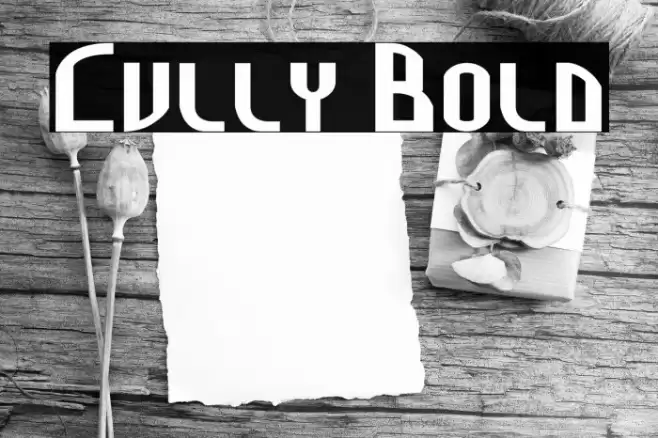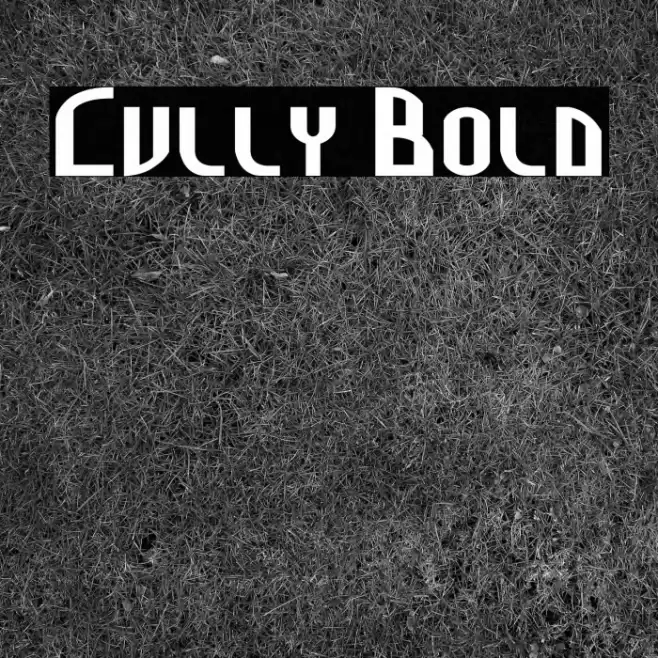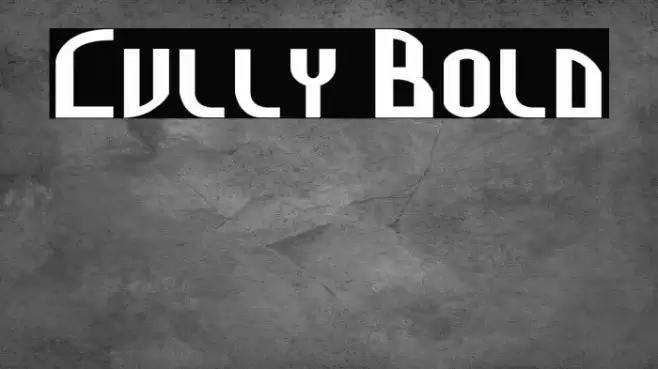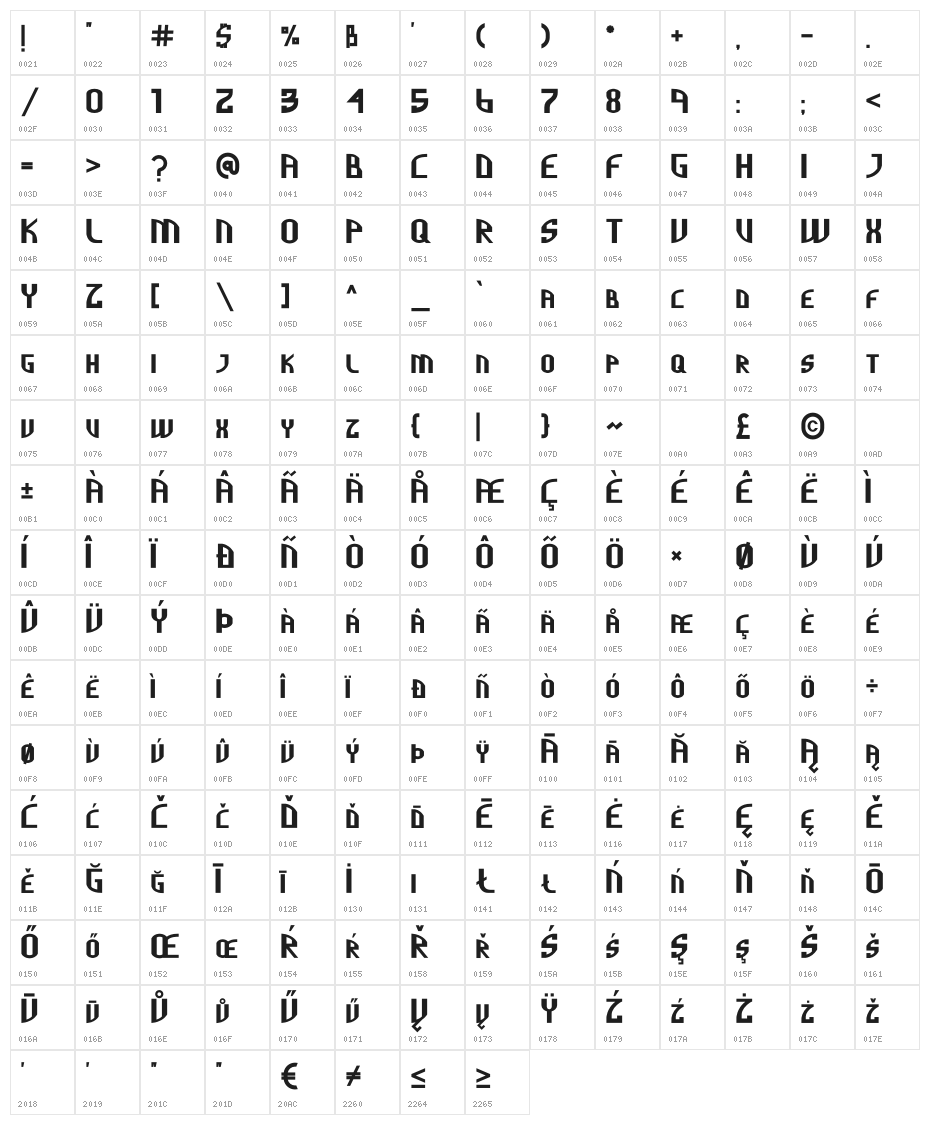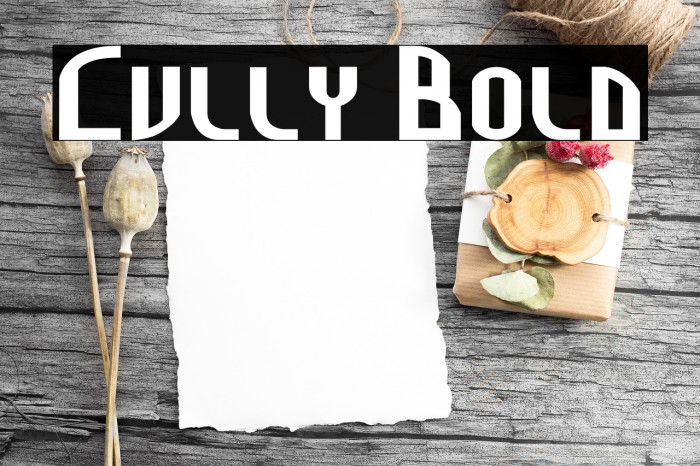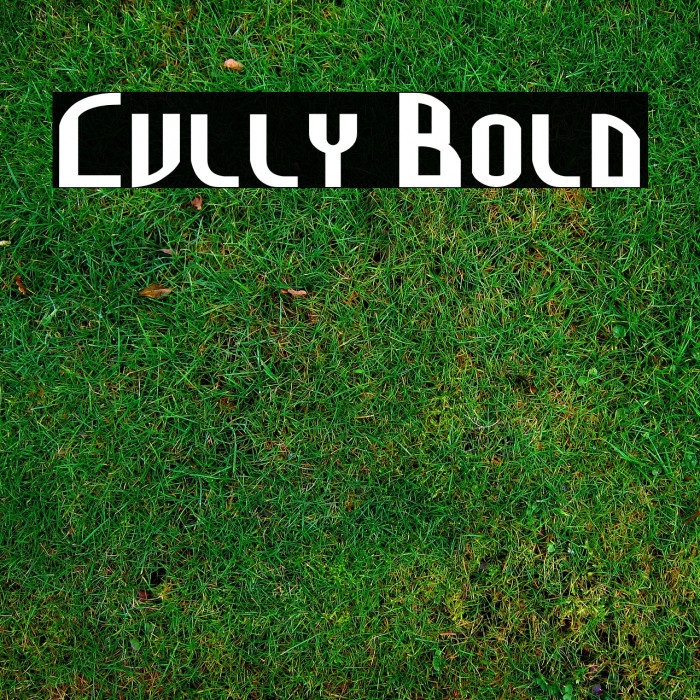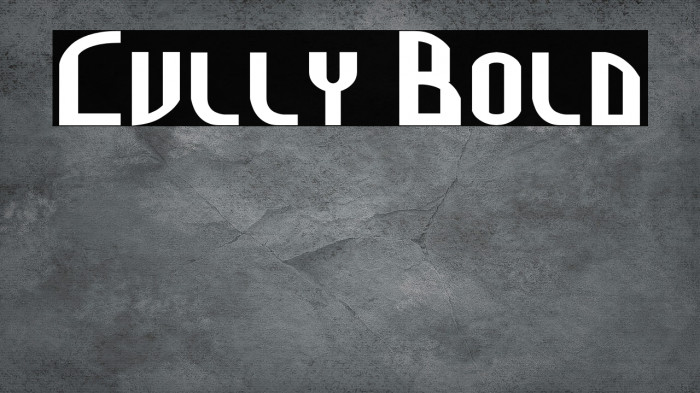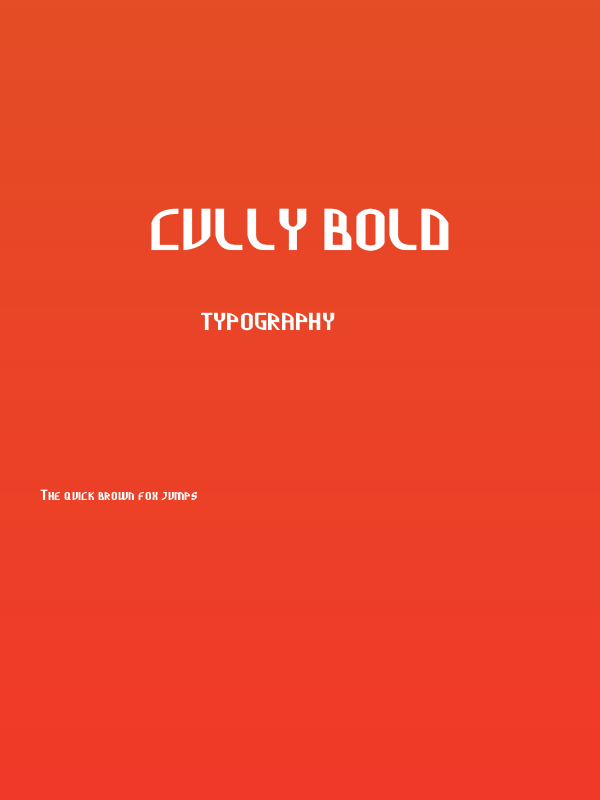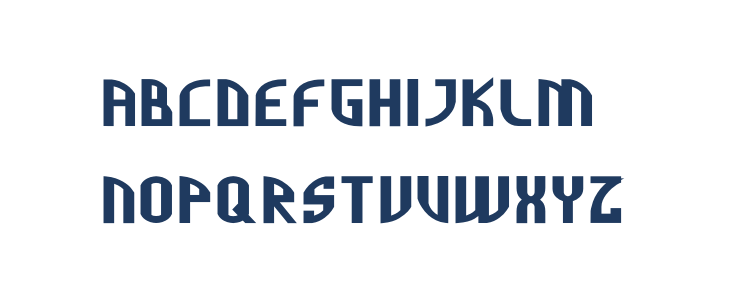
Cully Bold Font
Cully Bold Description
This font features a bold and geometric design with sharp angles and a futuristic aesthetic. The uppercase letters are distinct with a consistent stroke width, creating a strong visual impact. The lowercase letters maintain the same boldness, ensuring readability while adding a unique flair. Numbers are equally bold and geometric, fitting seamlessly with the overall style. Special characters are designed to match the boldness and geometric nature, making them stand out. This font is ideal for projects that require a modern and assertive look.
A bold, geometric font with a futuristic and modern aesthetic from Uncategorized fonts.
- Proposed Projects: Ideal for branding, posters, headlines, and any design requiring a strong, modern look.
Cully Bold UPPERCASE
Cully Bold LOWERCASE
Cully Bold OTHER CHARS